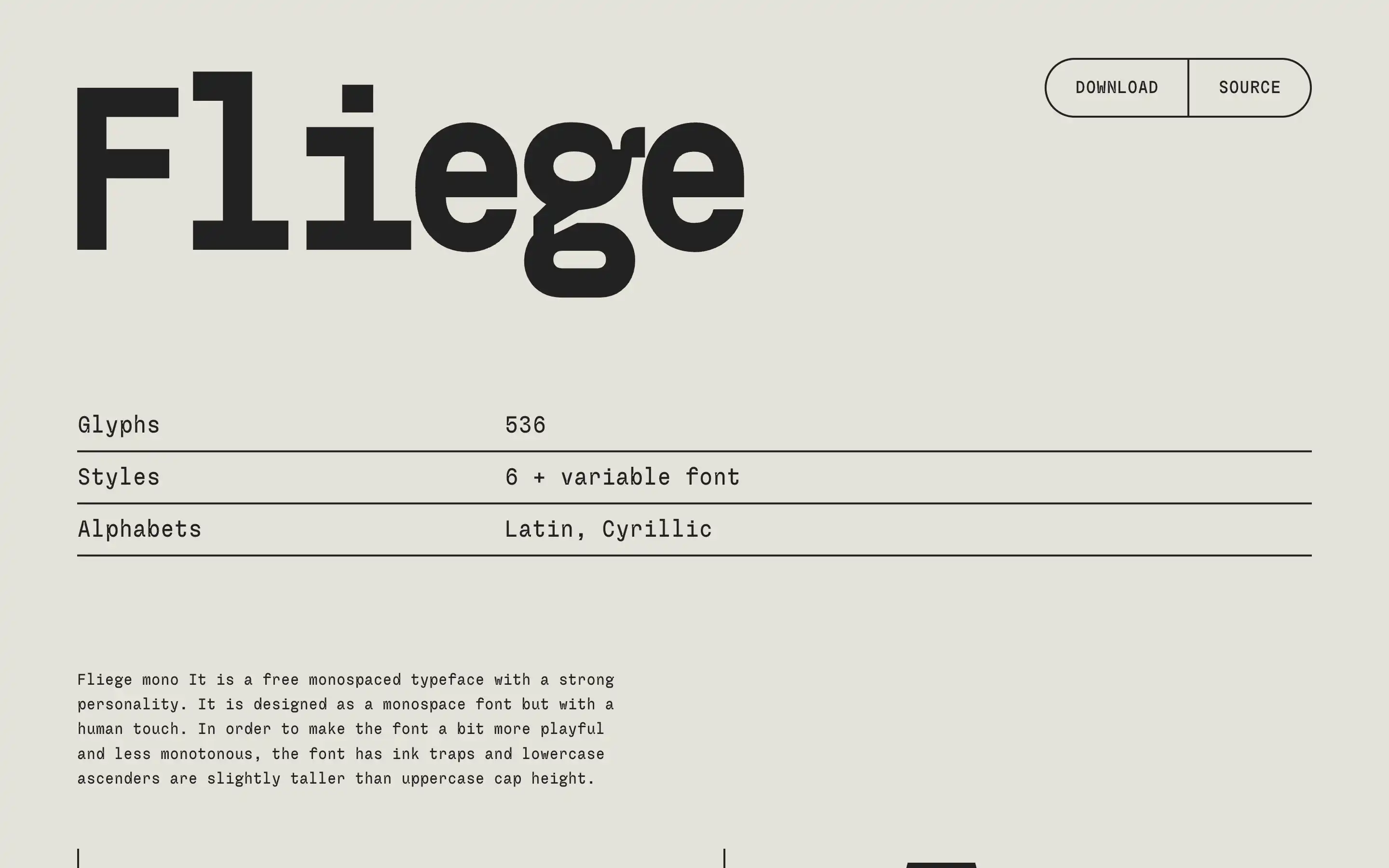
Fliege Mono is a free, monospaced typeface that combines functional precision with a playful, human-centered design. Its thoughtful features, such as ink traps and taller lowercase ascenders, create a unique balance between consistency and visual interest. Supporting extended Latin and Cyrillic alphabets, Fliege Mono is available in six static styles and a variable font version, giving users flexibility in their projects.
Its versatility makes it suitable for a wide range of applications, from coding and technical work to branding, design systems, and editorial layouts. With its clean, modern aesthetic and subtle personality, Fliege Mono offers designers and developers a practical yet expressive tool for creative and technical projects alike.